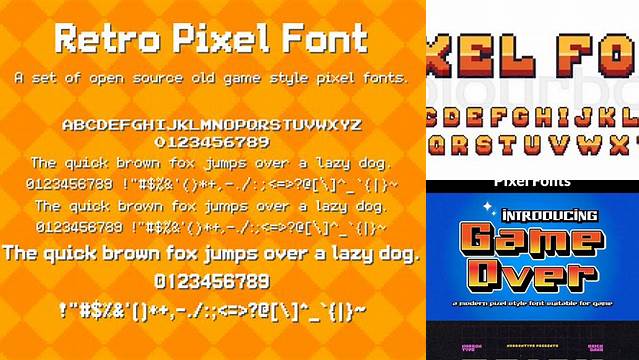
Free Pixel Fonts: Retro Typography For Your Projects
Are you looking to infuse your designs with a touch of nostalgia? Or maybe you're just fascinated by the clean, geometric aesthetic of pixel fonts? Well, you've come to the right place, guys! This comprehensive guide dives deep into the world of pixel fonts free to use, exploring everything from their history and uses to where you can find the best ones. So, buckle up and let's get pixelated!
Pixel Font Free to Use: The Lowdown
Before we jump into the nitty-gritty, let's clarify what we mean by pixel fonts free to use. Simply put, these are fonts designed with individual pixels, giving them a distinct, blocky appearance reminiscent of old-school video games and computer interfaces. The 'free to use' part means you can download and use these fonts without having to pay a licensing fee, perfect for personal and sometimes even commercial projects. However, it's always crucial to double-check the specific license of each font to make sure it aligns with your intended use. Nobody wants a licensing headache!
Understanding Pixel Fonts
What are Pixel Fonts?
So, what exactly are pixel fonts free to use? Think back to the early days of computing and video games. Screen resolutions were much lower, meaning fonts had to be designed pixel by pixel to be legible. This resulted in the creation of pixel fonts, which are characterized by their blocky, pixelated appearance. Today, these fonts are enjoying a resurgence in popularity, often used to evoke a retro vibe in designs, games, and websites. When looking for pixel fonts, you'll find a variety of styles, from classic 8-bit fonts to more modern interpretations. The key is to find a font that fits your specific needs and aesthetic. Remember to check the license agreement to ensure it's truly pixel font free to use for your purposes.
The History of Pixel Fonts
The history of pixel fonts free to use is intrinsically linked to the development of early computing and video games. In the early days, screen resolutions were limited, and displaying smooth, curved fonts was a challenge. So, designers created fonts using individual pixels, giving rise to the iconic pixelated look. These fonts were essential for displaying text on computer screens, arcade games, and early console systems. Think about the classic fonts used in games like Pac-Man or Space Invaders – those are prime examples of pixel fonts. As technology advanced, smoother fonts became possible, but the pixel font aesthetic remained popular, often used to evoke a sense of nostalgia or retro charm. Today, you can find a wide range of pixel fonts free to use, allowing you to incorporate this classic look into your projects.
Why Choose Pixel Fonts?
Why would you choose pixel fonts free to use over more modern fonts? Well, there are several compelling reasons. First and foremost, they offer a distinctive retro aesthetic that can add character and personality to your designs. Pixel fonts evoke nostalgia, reminding us of classic video games and early computing. They can be a great choice for projects that aim for a retro vibe, such as game design, website headers, or even branding. Beyond aesthetics, pixel fonts can also be incredibly legible at small sizes, making them suitable for use in user interfaces or other applications where readability is crucial. Plus, the fact that many pixel fonts free to use makes them an accessible option for designers and creators on a budget.
Finding the Best Pixel Fonts
Speaking of licenses, let's talk about understanding them when it comes to pixel fonts free to use. Font licenses determine how you can legally use a font. There are several types of licenses, ranging from fully free for both personal and commercial use to more restrictive licenses that limit how you can use the font. A common type of free license is the Open Font License (OFL), which allows you to use, modify, and distribute the font freely. However, it's crucial to read the specific license agreement for each font you download. Some fonts may be free for personal use but require a commercial license for commercial projects. Neglecting to understand font licenses can lead to legal issues, so it's always best to err on the side of caution and ensure you're using pixel fonts free to use within the bounds of their licenses.
Using Pixel Fonts in Your Projects
Pixel Fonts in Game Design
One of the most popular uses for pixel fonts free to use is in game design. These fonts are perfect for creating a retro aesthetic, evoking the classic look of 8-bit and 16-bit games. Pixel fonts can be used for in-game text, menus, and UI elements, adding a touch of authenticity to your game's visuals. When choosing a pixel font for your game, consider the overall style and tone of your project. A simple, blocky pixel font might be ideal for an old-school arcade-style game, while a more stylized pixel font might be suitable for a more modern game with a retro aesthetic. Remember to ensure that the pixel fonts free to use you choose are legible at the size they will be displayed in your game.
Pixel Fonts in Web Design
Pixel fonts free to use can also be a fantastic addition to web design projects, particularly if you're aiming for a retro or nostalgic feel. These fonts can be used for headlines, body text, or even UI elements, adding a unique visual touch to your website. However, it's important to use pixel fonts judiciously in web design. Due to their pixelated nature, they might not be as legible as traditional fonts at smaller sizes. It's generally best to use pixel fonts for larger text elements, such as headings or titles, and to pair them with more readable fonts for body text. Also, ensure that the pixel fonts free to use you choose are web-safe, meaning they're widely supported by different browsers and operating systems.